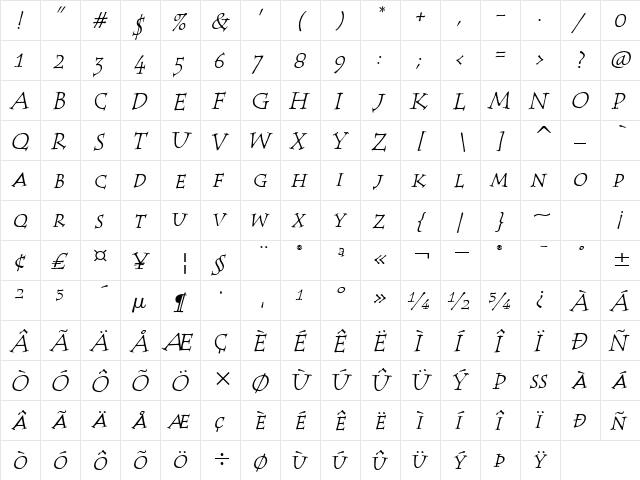
TempusSCITC BoldItalic Font Preview
Design Context for TempusSCITC Typeface
TempusSCITC offers clean, dependable letterforms without strong stylistic allegiance, making it a practical choice for designers who need flexibility. The slanted form adds forward momentum and visual energy. The heavy weight commands attention and anchors typographic hierarchies.